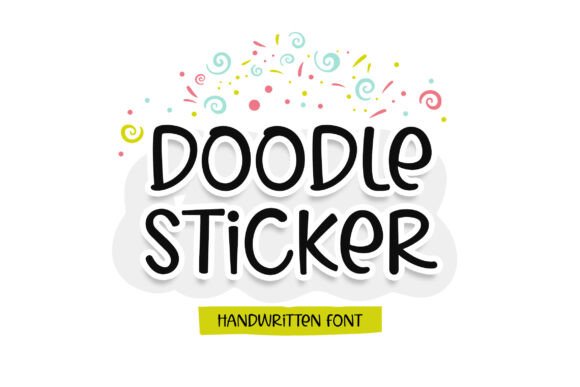
Doodle Sticker Font: Elevate Your Design with Elegance and Style
The Doodle Sticker Font is a stunning handwritten font that exudes beauty, class, elegance, and style. Its unique and captivating design makes it an ideal choice for a wide range of projects, from signature and stationery to logo creation, wedding designs, typography quotes, magazine or book covers, website headers, branding, and more. This versatile font is perfect for fashion-related branding or editorial design, showcasing both masculine and feminine qualities that cater to diverse tastes and preferences.
The Beauty of Doodle Sticker Font
The Doodle Sticker Font boasts a distinctive handwritten style that sets it apart from other fonts. Its elegant and refined appearance makes it perfect for designs that require a touch of sophistication and luxury. The font’s unique doodle-inspired elements add a playful and creative twist, making it suitable for a wide range of applications, from formal to informal designs.
Key Features of Doodle Sticker Font
- Elegant and Refined Design: The Doodle Sticker Font features a beautiful, handwritten design that adds a touch of elegance and sophistication to any project.
- Unique Doodle-Inspired Elements: The font’s doodle-inspired elements add a playful and creative twist, making it perfect for designs that require a personal touch.
- Versatile and Adaptable: The Doodle Sticker Font is suitable for a wide range of projects, from formal to informal designs, and can be used for both masculine and feminine branding.
- High-Quality and Readable: The font is designed to be highly readable, making it perfect for body text, headings, and titles.
Uses of Doodle Sticker Font
The Doodle Sticker Font is an incredibly versatile font that can be used for a wide range of projects, including:
Project Ideas
- Signature and Stationery: Create beautiful and elegant signatures and stationery with the Doodle Sticker Font.
- Logo Creation: Use the font to create stunning logos that showcase your brand’s personality and style.
- Wedding Designs: Add a touch of elegance and romance to your wedding designs, including invitations, programs, and decorations.
- Typography Quotes: Create inspiring and beautiful typography quotes that showcase your favorite phrases and quotes.
- Magazine or Book Covers: Use the Doodle Sticker Font to create eye-catching magazine or book covers that grab attention.
- Website Headers: Elevate your website’s design with the font’s elegant and refined appearance.
- Branding: Use the font for branding purposes, including business cards, letterheads, and packaging.
- Fashion-Related Branding: Showcase both masculine and feminine qualities with the Doodle Sticker Font, perfect for fashion-related branding and editorial design.
Why Choose Doodle Sticker Font?
The Doodle Sticker Font is an excellent choice for designers and businesses looking for a unique and elegant font that can elevate their designs. Here are some reasons why you should choose this font:
Reasons to Choose Doodle Sticker Font
- Unique and Eye-Catching Design: The font’s doodle-inspired elements and elegant design make it stand out from other fonts.
- Versatile and Adaptable: The font is suitable for a wide range of projects and can be used for both formal and informal designs.
- High-Quality and Readable: The font is designed to be highly readable, making it perfect for body text, headings, and titles.
- Elegant and Refined Appearance: The font’s elegant and refined appearance makes it perfect for designs that require a touch of sophistication and luxury.
The Doodle Sticker Font is a stunning handwritten font that offers elegance, class, and style to any design project. Its unique doodle-inspired elements and versatile design make it perfect for a wide range of applications, from formal to informal designs. With its high-quality and readable design, the Doodle Sticker Font is an excellent choice for designers and businesses looking to elevate their designs and showcase their brand’s personality and style.